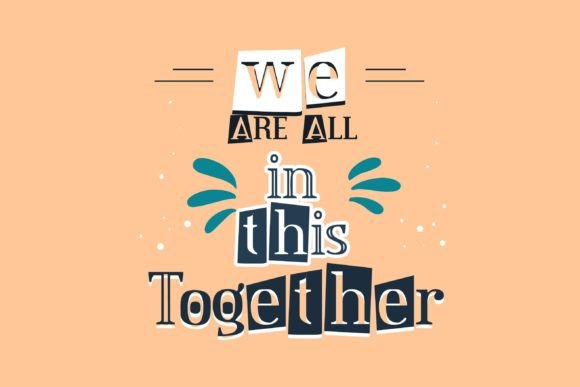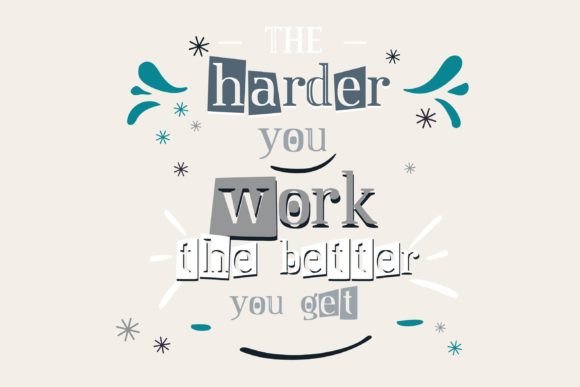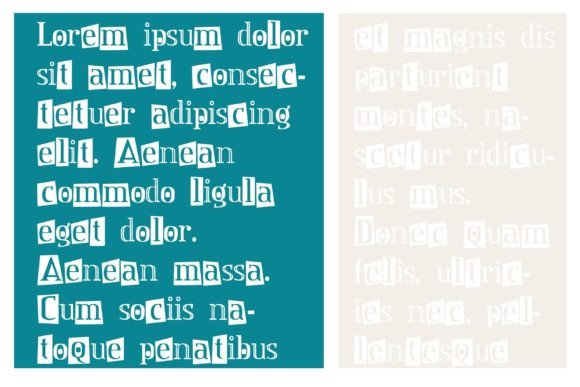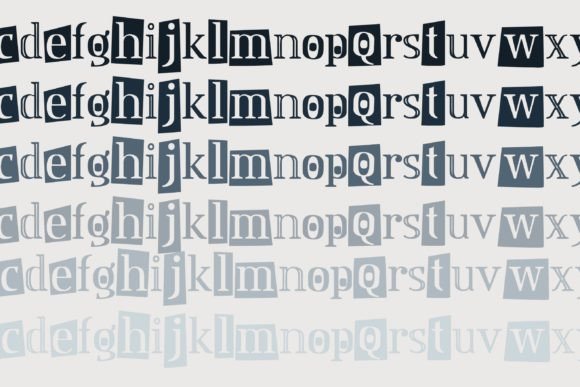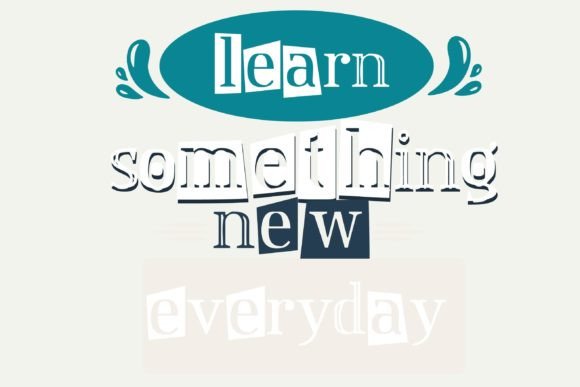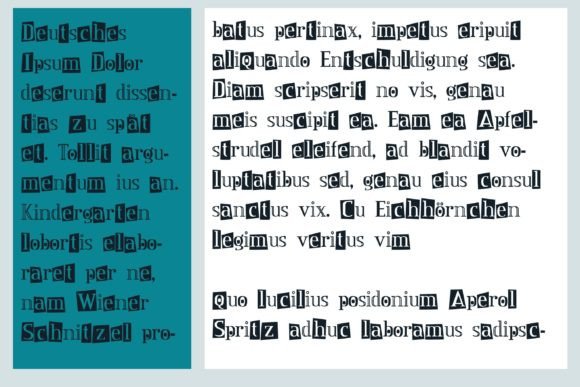
Unleash the Power of Blackout Font: Elevate Your Designs with a Unique Serif
In the world of typography, fonts play a crucial role in conveying messages, evoking emotions, and adding personality to designs. Among the numerous font styles available, the Blackout Font stands out as a distinctive and versatile choice. This hand-crafted serif font is a masterful blend of reverse and regular, black and white, dotted, and undotted elements, making it an excellent addition to any design project.
The Distinctive Features of Blackout Font
The Blackout Font boasts a unique combination of characteristics that set it apart from other serif fonts. Its reverse and regular styles allow for a high level of flexibility, enabling designers to experiment with different visual effects. The black and white elements add a touch of sophistication, while the dotted and undotted features create a sense of texture and depth.
This font’s versatility makes it suitable for a wide range of applications, from elegant branding and advertising materials to creative crafts and DIY projects. Whether you’re looking to add a touch of elegance or a dash of playfulness, the Blackout Font is an excellent choice.
Why Choose Blackout Font for Your Designs?
So, what makes the Blackout Font an attractive option for designers and crafters? Here are a few compelling reasons:
- Unique Visual Appeal: The Blackout Font’s distinctive blend of styles and elements creates a visually striking effect that can elevate your designs and capture the audience’s attention.
- Flexibility: With its range of styles and variations, the Blackout Font offers endless possibilities for creative experimentation and customization.
- Elegance and Sophistication: The font’s black and white elements, combined with its serif features, add a touch of elegance and sophistication to any design.
- Easy to Read: Despite its unique style, the Blackout Font remains highly legible, making it suitable for use in body text, headings, and titles.
How to Use Blackout Font in Your Creations
To make the most of the Blackout Font, here are some tips for incorporating it into your designs:
- Experiment with Different Styles: Try combining the reverse and regular styles to create visually interesting effects.
- Play with Contrast: Use the black and white elements to create striking contrasts and add depth to your designs.
- Add Texture: Incorporate the dotted and undotted features to add texture and visual interest to your designs.
- Mix and Match: Combine the Blackout Font with other fonts to create unique and eye-catching typography.
Inspirational Ideas for Using Blackout Font
To inspire your creativity, here are some ideas for using the Blackout Font in different design projects:
- Branding and Logo Design: Use the Blackout Font to create a distinctive and memorable logo that stands out from the crowd.
- Advertising and Marketing Materials: Incorporate the font into your advertising materials, such as brochures, flyers, and posters, to add a touch of elegance and sophistication.
- Crafting and DIY Projects: Use the Blackout Font to add a personal touch to your crafting and DIY projects, such as handmade cards, gift tags, and scrapbook pages.
- Digital Art and Illustration: Combine the Blackout Font with digital art and illustration to create stunning and unique visual effects.
In conclusion, the Blackout Font is a versatile and distinctive serif font that can add a unique touch to your designs. Its combination of reverse and regular, black and white, dotted, and undotted elements makes it an excellent choice for a wide range of applications. By incorporating the Blackout Font into your designs, you can create visually striking effects, add elegance and sophistication, and elevate your creations to the next level. So, use it confidently in your creation and notice the incredible touches it can add to your designs.